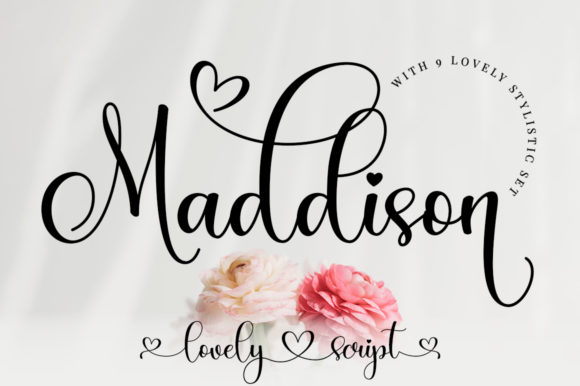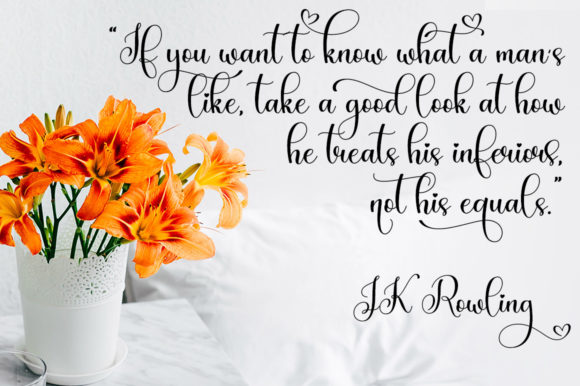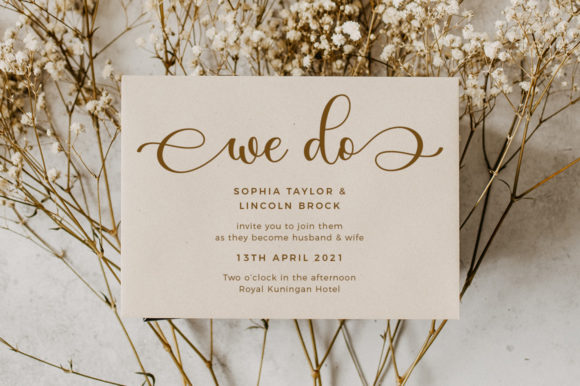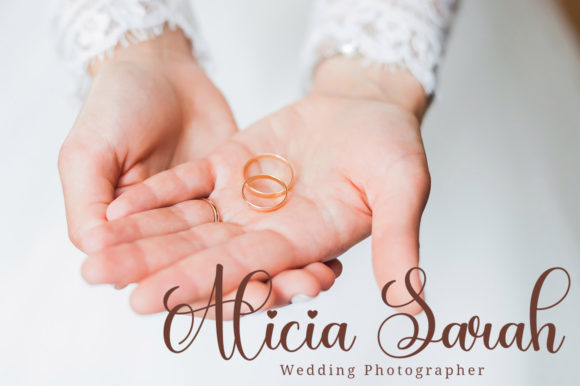
Maddison is a delightful blend of romance and elegance, encapsulated in a calligraphy typeface that’s perfect for adding a personal touch to any project. Its characters, which dance gracefully along the baseline, bring a casual yet sophisticated vibe to your designs. The font’s PUA encoding is a significant advantage, allowing you to access a wide array of glyphs and swashes effortlessly, making customization a breeze. Whether you’re designing invitations, branding materials, or personal stationery, Maddison offers the flexibility and charm needed to create something truly special. Its versatility ensures that every piece you create is infused with a sense of warmth and individuality.